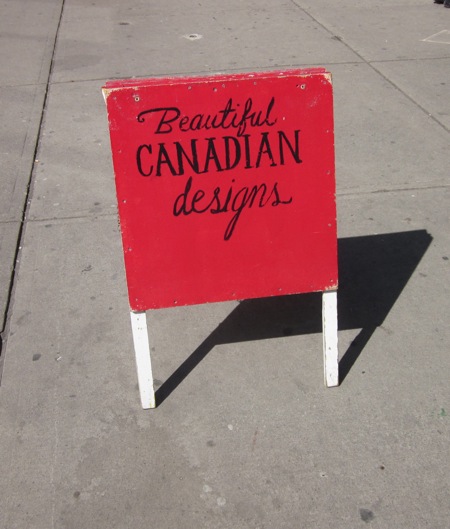
Beautiful CANADIAN designs
Here’s a sign that shows how simple it can be to make a huge impact. Two colours. Three words. Hand painted lettering. That’s all it takes to make a lot out of a little.